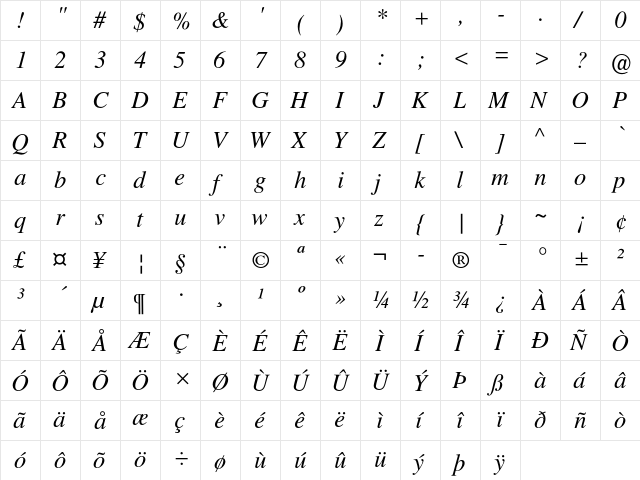
NimbusRomNo9L Italic
Design Context for NimbusRomNo9L Typeface
NimbusRomNo9L offers clean, dependable letterforms without strong stylistic allegiance, making it a practical choice for designers who need flexibility. Its italic angle brings a sense of urgency and motion to the letterforms.
Pro Tip: Try NimbusRomNo9L for annotation and caption copy alongside an upright companion — the contrast in angle creates a dynamic but ordered typographic system.